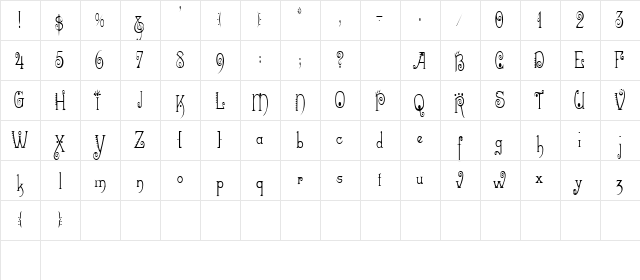
MexacaliCondensed Regular
Design Context for MexacaliCondensed Typeface
MexacaliCondensed is a composed and adaptable typeface that performs quietly and consistently across a wide range of design contexts. The condensed width makes it efficient for tight spaces without sacrificing legibility.